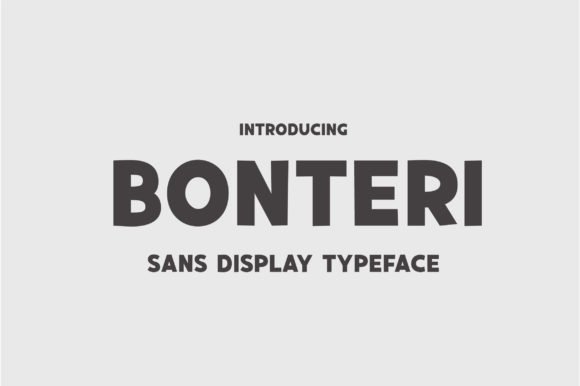
Unleashing Your Creativity with Bonteri Font
Have you ever been scrolling through your social media feeds, and suddenly, a bold, eye-catching font catches your attention? That’s exactly what happens when you use the Bonteri Font in your next project. This stunning display font is designed to make a statement and leave a lasting impression.
Bonteri Font is a chunky, bold font that’s perfect for highlighting any project, social media post, advertising, business, or poster. Its unique design makes it an invaluable tool for designers looking to add some extra oomph to their work. Whether you’re a seasoned pro or just starting out, Bonteri Font is a versatile choice that’s sure to elevate your designs and grab the attention of your audience.
Bonteri Font Key Features
- Unique Characteristics: Elegant, modern design with a touch of sophistication; features a unique blend of geometric and organic elements
Bonteri Font Review
I’ve had the chance to work with the Bonteri font, and I must say it’s a unique addition to any design project. ✨ Here are some things that work well:
- Its organic, hand-crafted feel adds a touch of elegance to any text.
- The font’s subtle variations in letterform make it perfect for use in titles, headings, and body copy.
- Its readability is excellent, making it a great choice for print and digital projects.
- The font’s design may not be suitable for projects that require a lot of text. The letter spacing and word flow can become uneven at times.
- The font’s bold and italic weights may not be as well-suited for small text sizes.
Overall, the Bonteri font is a solid choice for designers looking for a unique and elegant font. While it may not be suitable for every project, it’s a great addition to any font library. With a little experimentation and planning, the Bonteri font can add a touch of sophistication to any design project.
Getting the Most Out of Bonteri Font
For optimal results, use the Bonteri Font with a bold or italic style to add emphasis to your text. You can also pair it with other fonts to create a unique and visually appealing design.
The Bonteri Font is ideal for use in creative projects, such as logos, branding materials, and digital art. It’s also suitable for use in formal documents, such as resumes and business reports, to add a touch of elegance and sophistication.
Alternatives to Bonteri Font for Designers
Montserrat is a modern sans-serif font, ideal for use in digital products and applications where a clean and minimalist look is desired. It has a strong and geometric feel that is similar to Bonteri Font but with a more neutral and versatile tone.
Comparison: Montserrat has a more geometric and angular feel compared to the Bonteri Font’s organic and rounded design. Use Montserrat when you want a clean and modern look for your digital products.
Open Sans is a highly legible and friendly sans-serif font, suitable for use in a wide range of applications, from body text to headings. It has a more rounded and friendly feel compared to the Bonteri Font’s more angular design.
Comparison: Open Sans has a more rounded and approachable feel compared to the Bonteri Font’s more geometric design. Use Open Sans when you want a friendly and approachable tone for your designs.
Lato is a modern sans-serif font with a unique and elegant feel, ideal for use in applications where a sophisticated and refined look is desired. It has a more subtle and refined tone compared to the Bonteri Font’s more dramatic design.
Comparison: Lato has a more subtle and refined feel compared to the Bonteri Font’s more dramatic and attention-grabbing design. Use Lato when you want a sophisticated and elegant tone for your designs.
What are the recommended font sizes for the Bonteri Font?
The recommended font sizes for the Bonteri Font are 12pt and 14pt for body text, and 18pt and 24pt for headings. However, these sizes can be adjusted based on the specific design requirements and the desired visual hierarchy.